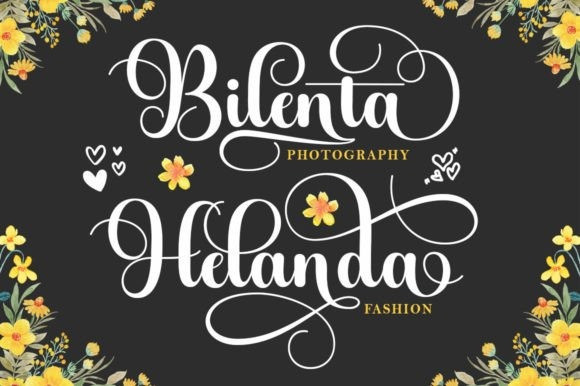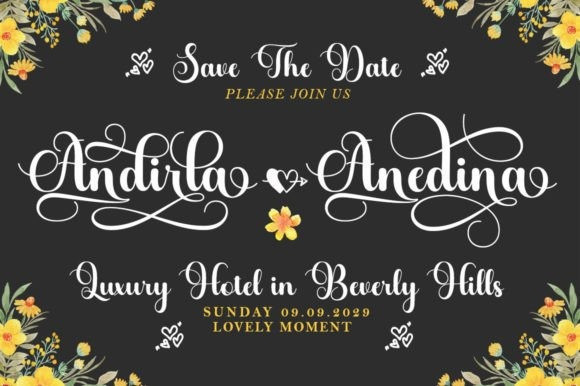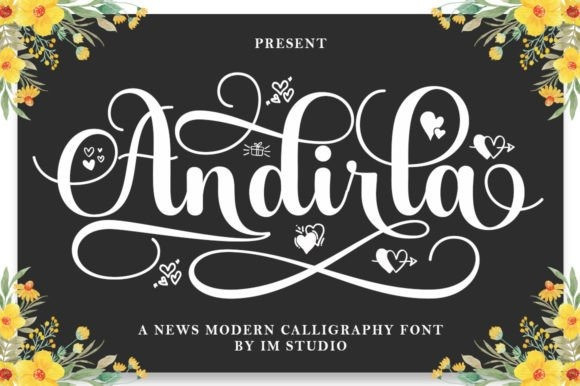
Andirla Script Font
Andirla Script Font is a modern and flowing handwritten font. It features varied bases, smooth lines, gorgeous glyphs, and stunning alternatives. Fall in love with its incredibly versatile style, and use it to create spectacular designs!